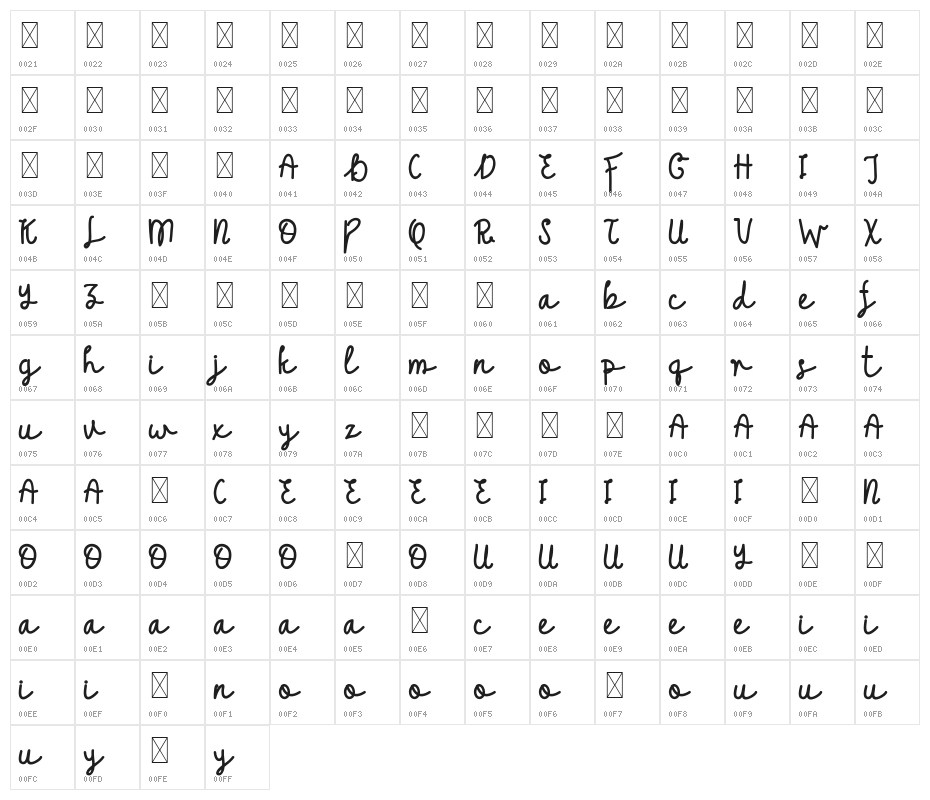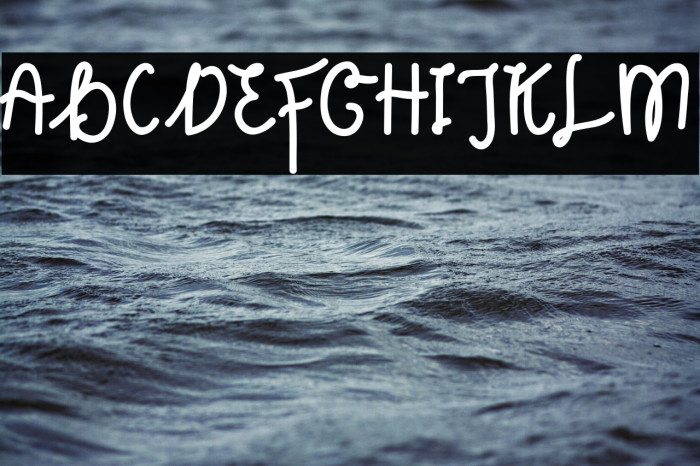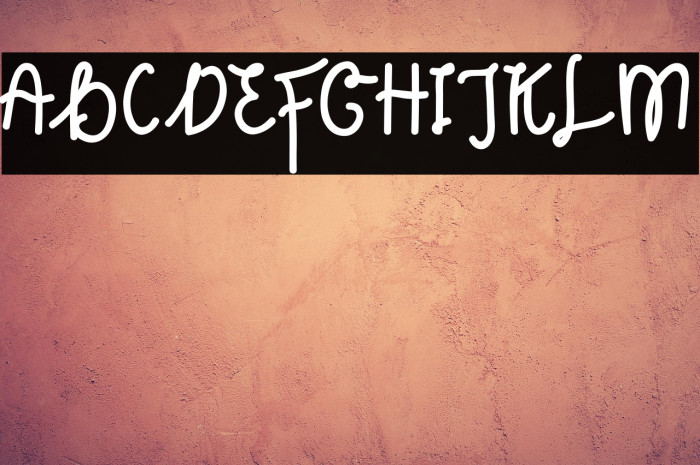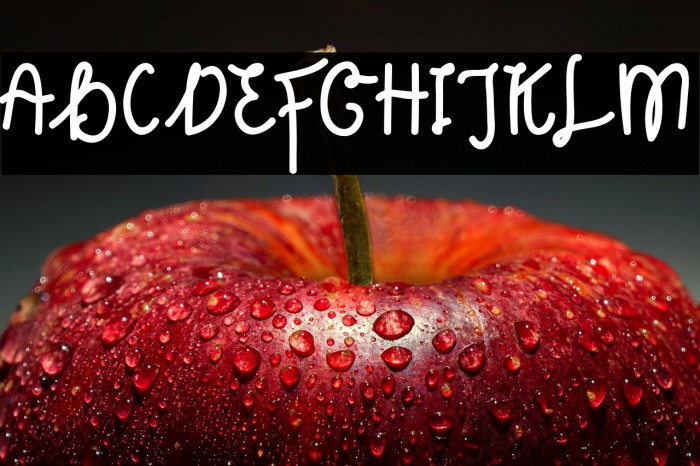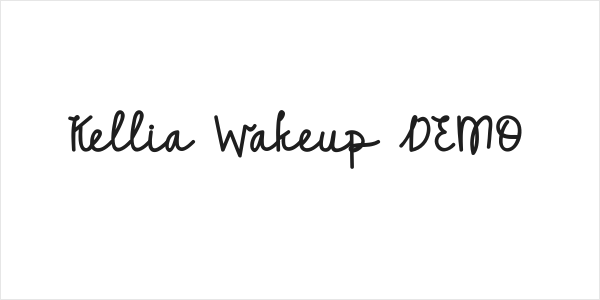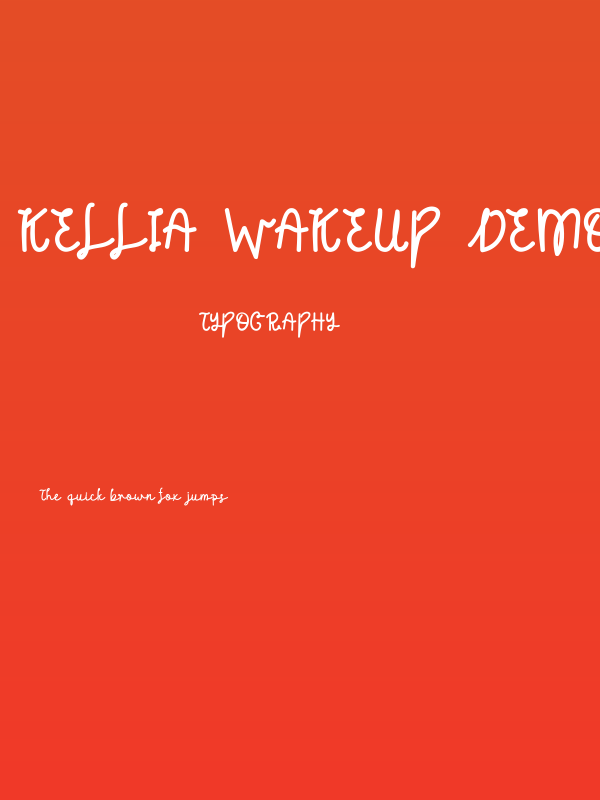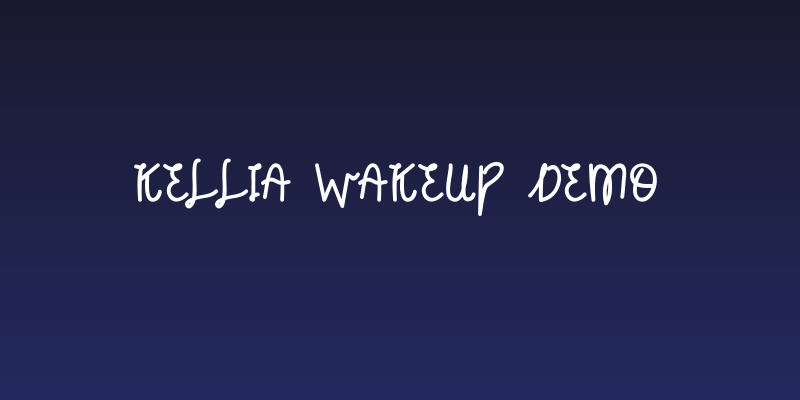
Kellia Wakeup DEMO Font
Kellia Wakeup DEMO Description
This font features a playful and casual handwritten style, characterized by its fluid and connected letterforms. The uppercase letters maintain a consistent height with slight variations in stroke width, giving them a dynamic and lively appearance. The lowercase letters are similarly connected, enhancing the font's cursive nature. The overall design is informal, with a friendly and approachable vibe. The strokes are smooth and rounded, contributing to a sense of warmth and personality. This font is ideal for projects that require a personal touch or a creative flair.
Overall StyleCasual, Playful
Use CaseLogos, Headlines, Invitations
Proposed ProjectsGreeting cards, invitations, personal branding, creative projects, and social media graphics.